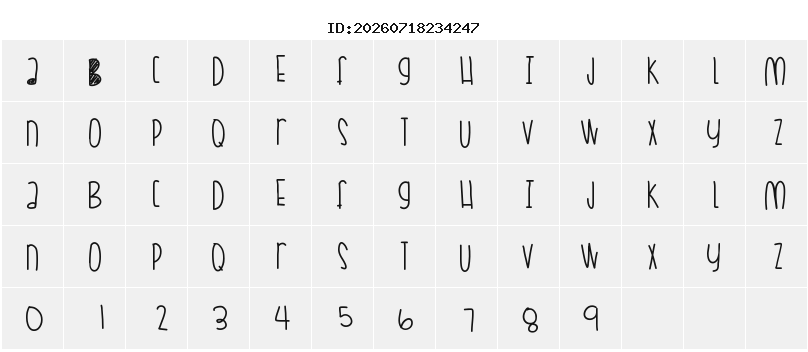
About CoralSkittles.ttf
CoralSkittles.ttf is a modern, elegant sans-serif font designed for ultimate readability and visual harmony. Perfect for branding, headlines, web design, and print materials.